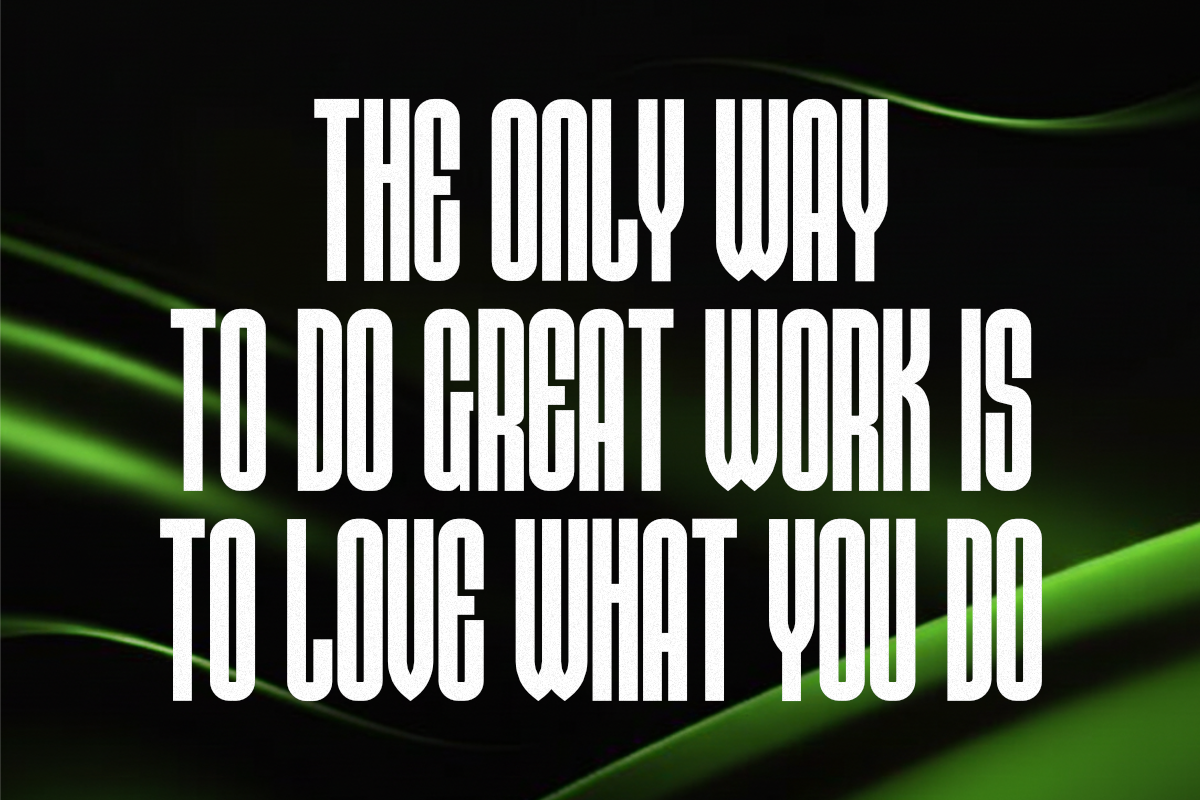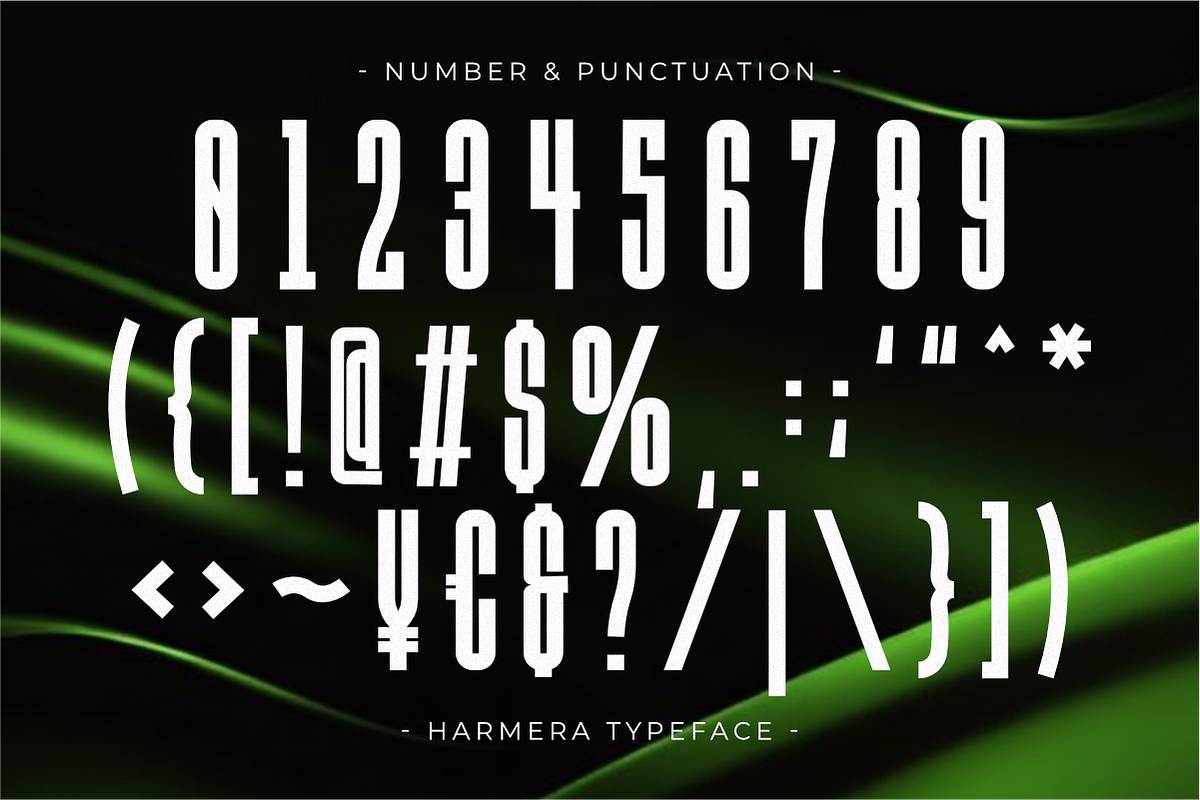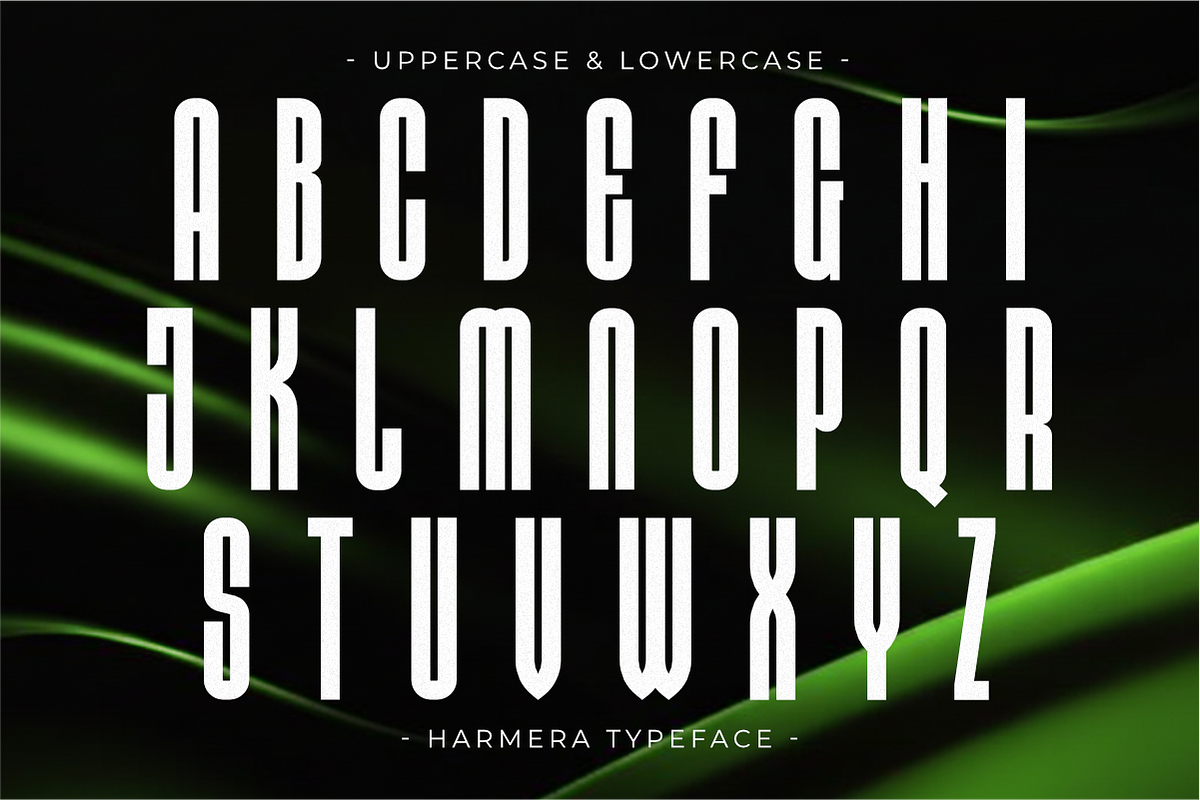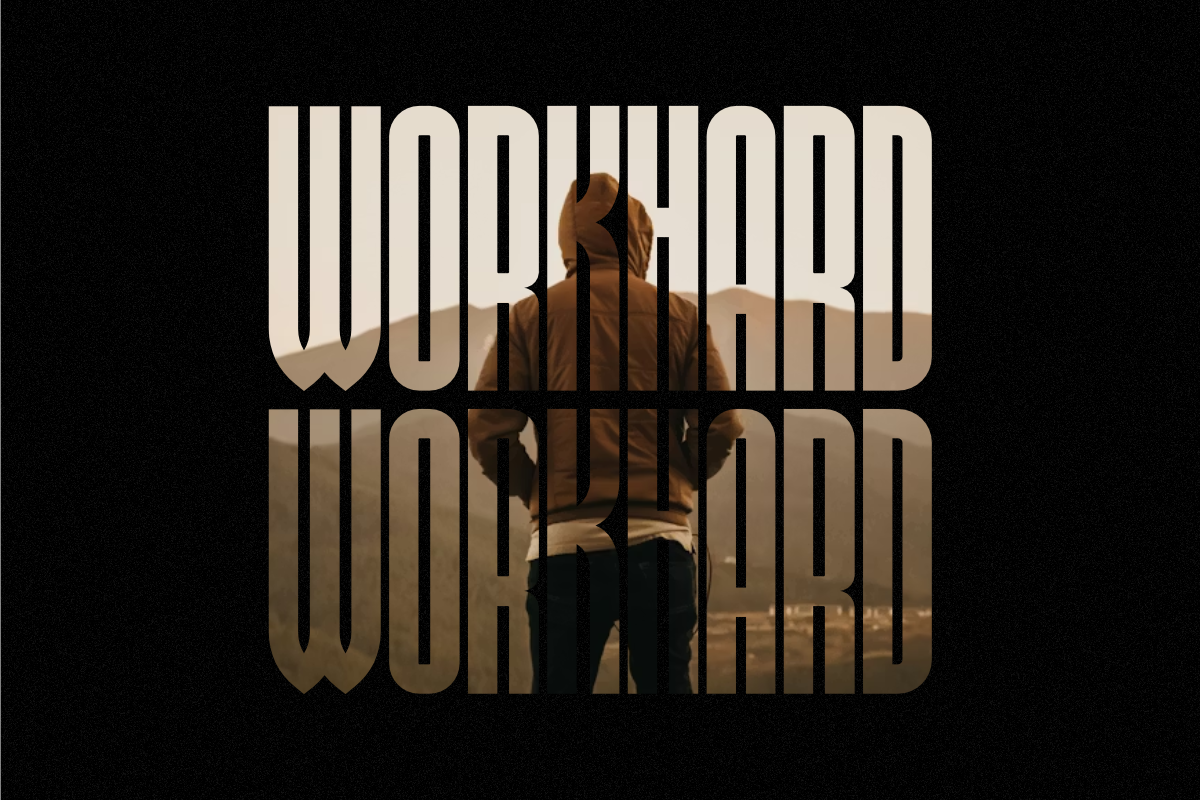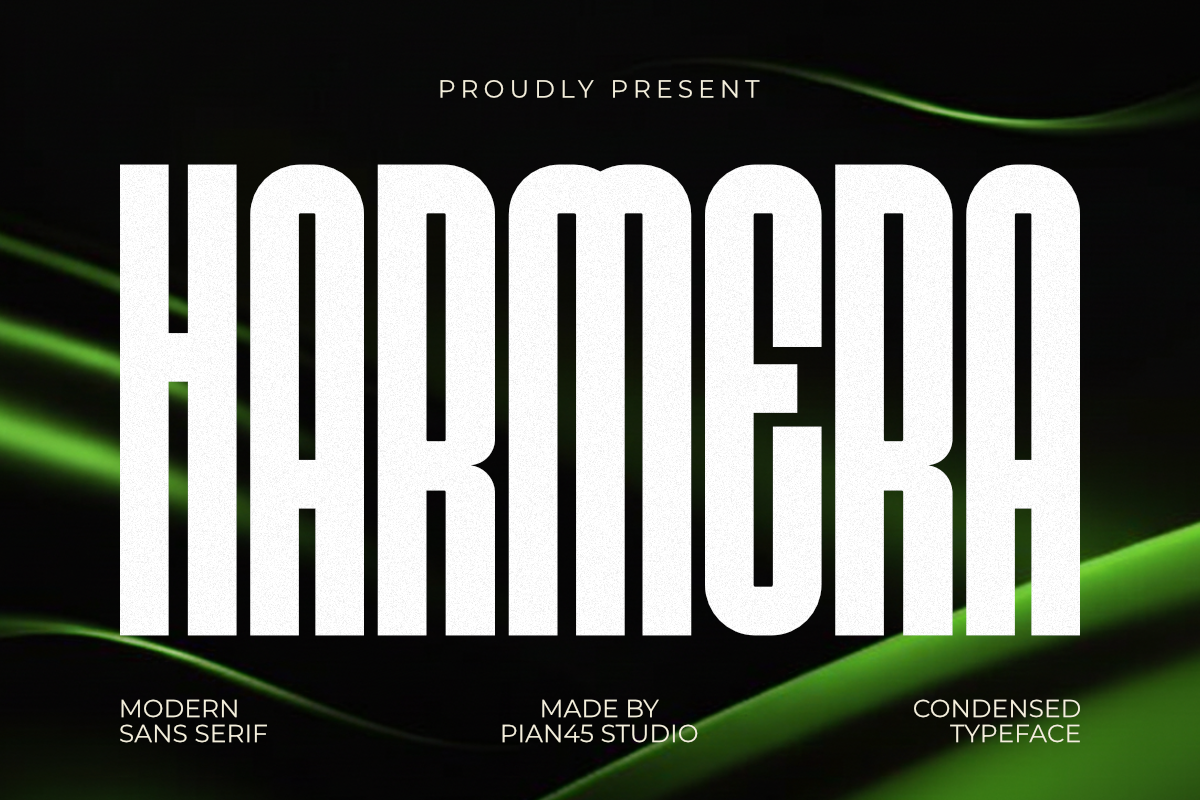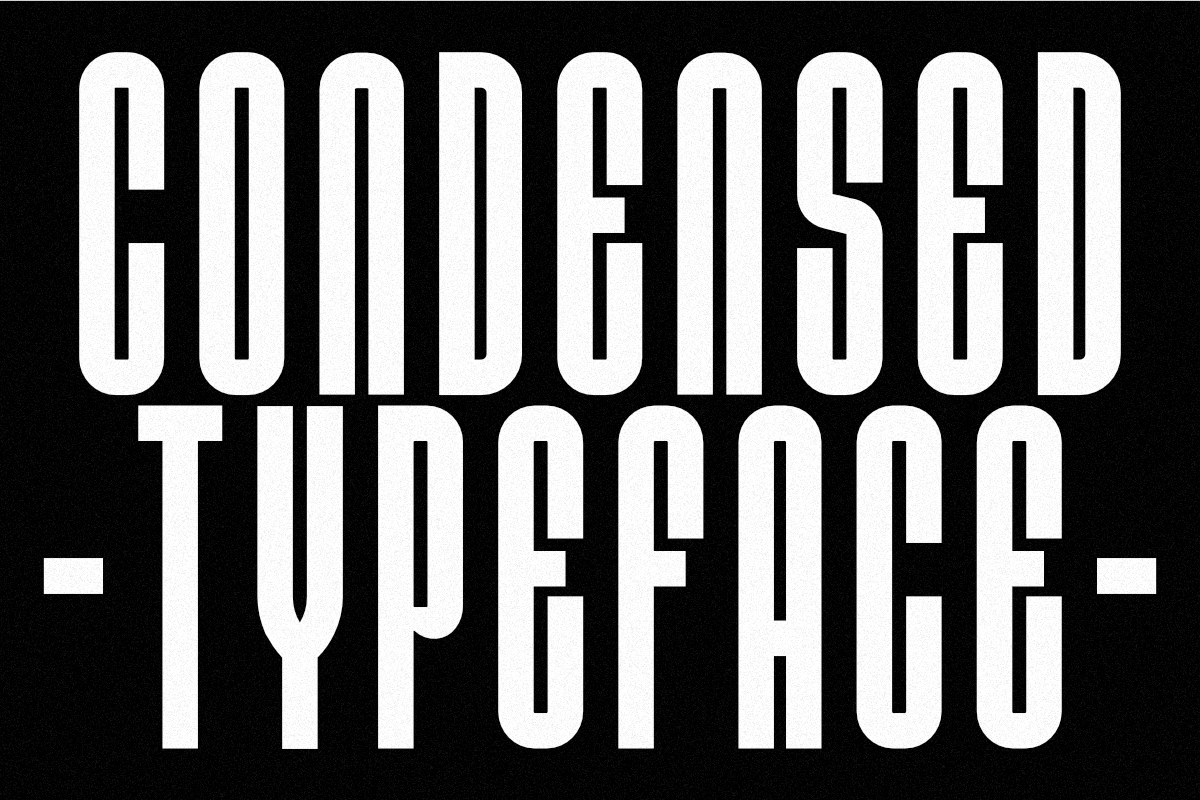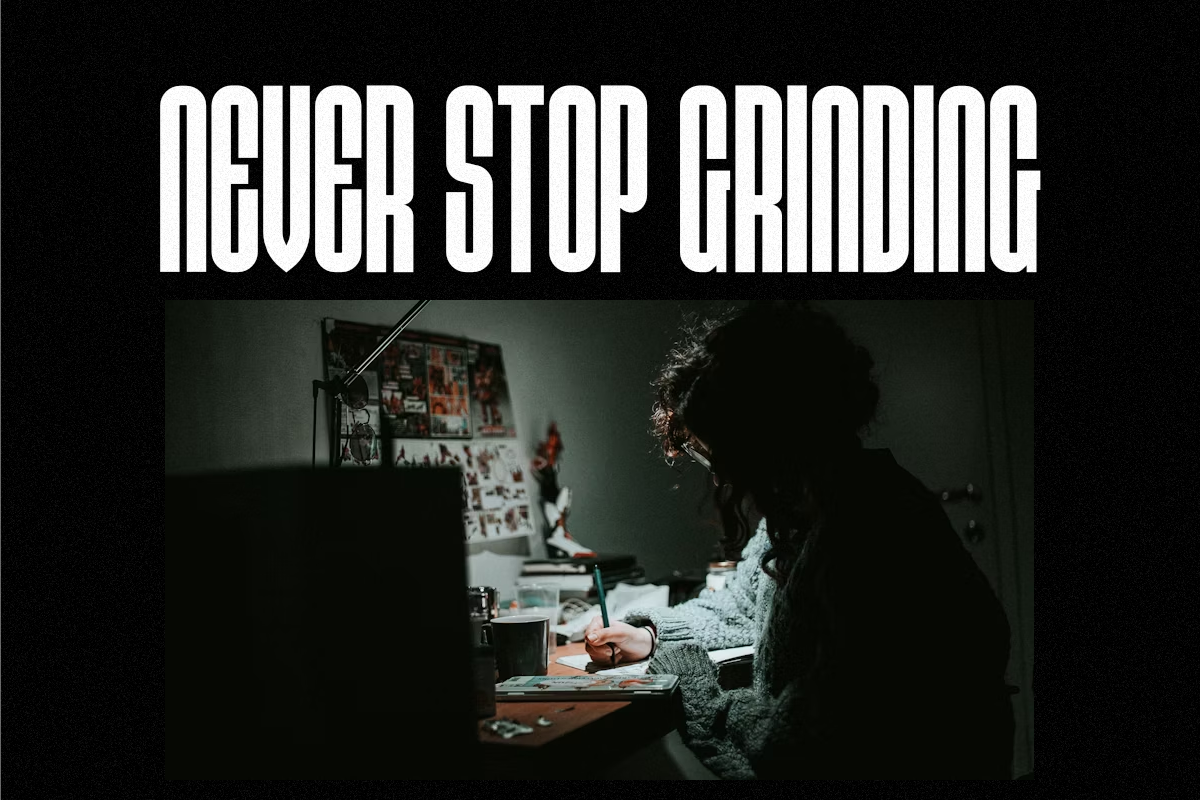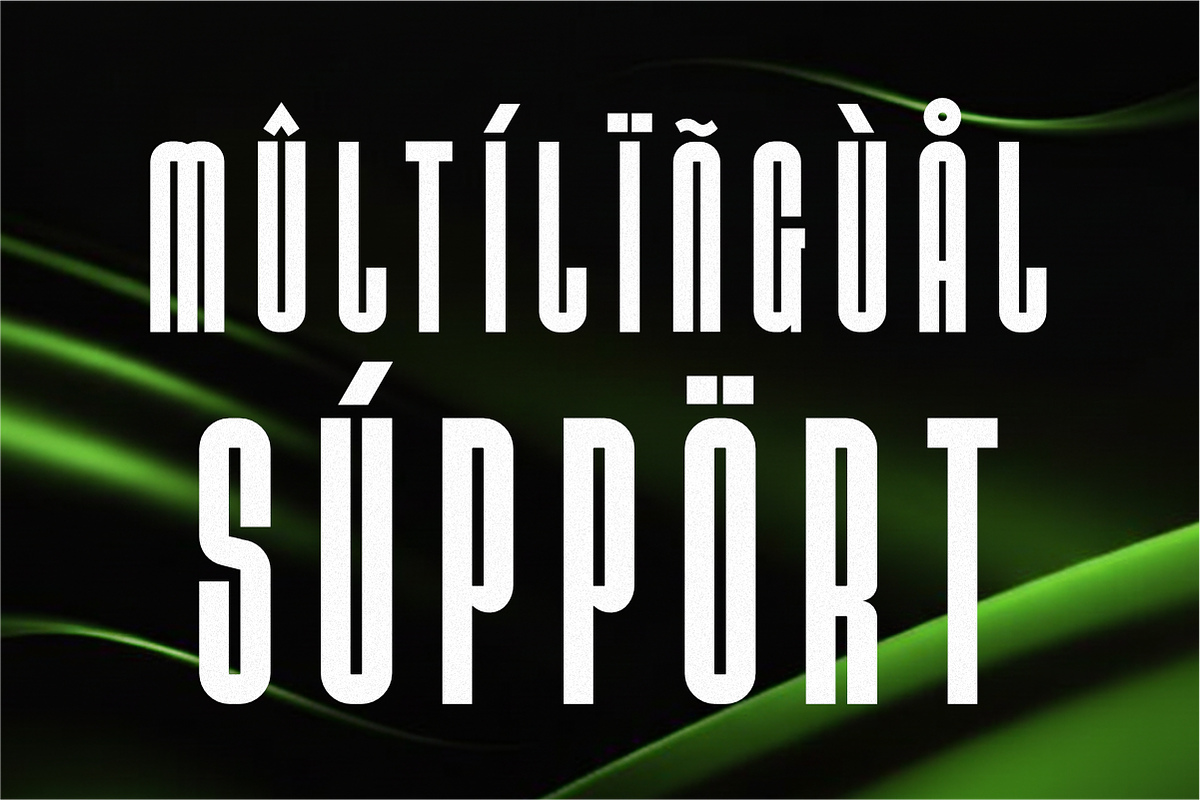
Harmera - Condensed Sans Serif Font
Harmera is a commanding and minimalist Modern Sans Serif font designed for maximum height and impact. Its ultra-bold, condensed structure with soft, rounded terminals is perfect for high-fashion branding, monumental editorial layouts, sports logos, and colossal headlines. This all-caps typeface delivers a sophisticated, contemporary, and instantly recognizable visual identity, making it essential for any project demanding a dominant, clean, and striking vertical presence.